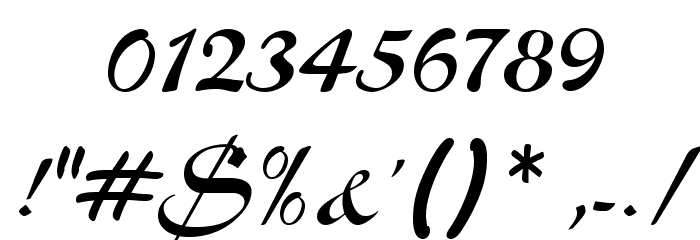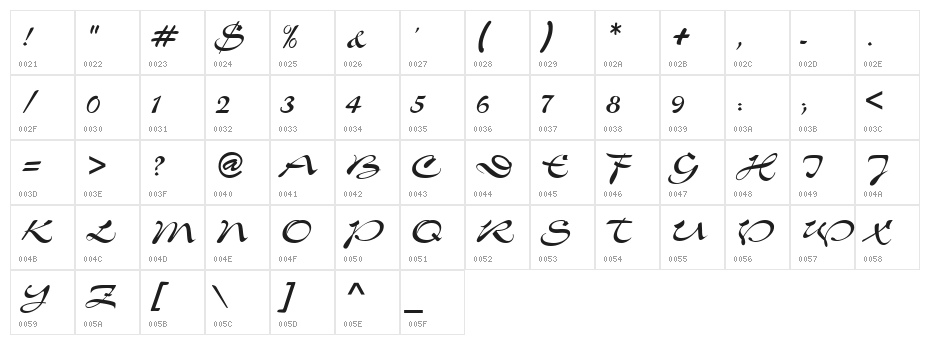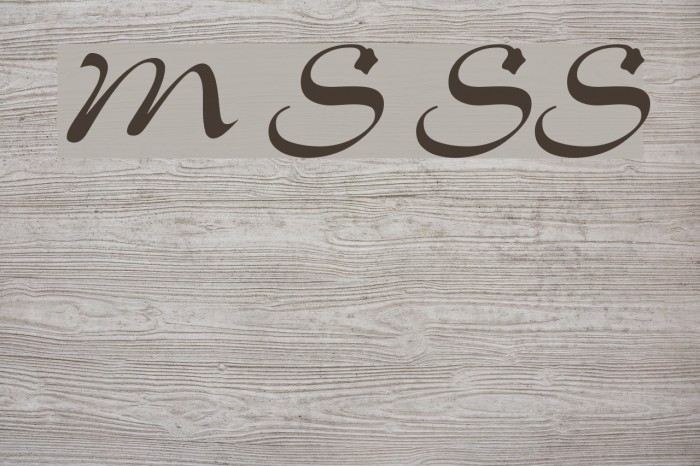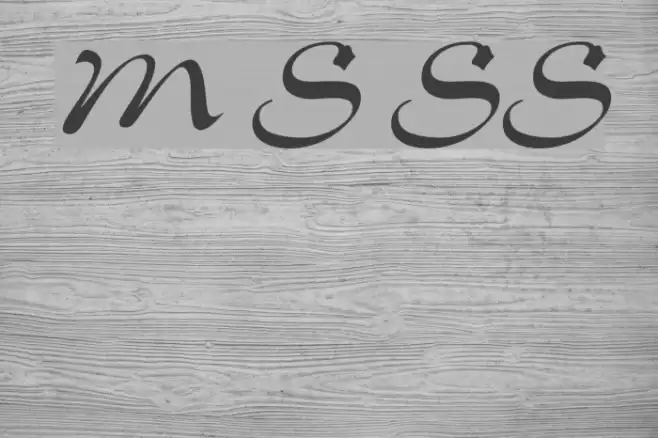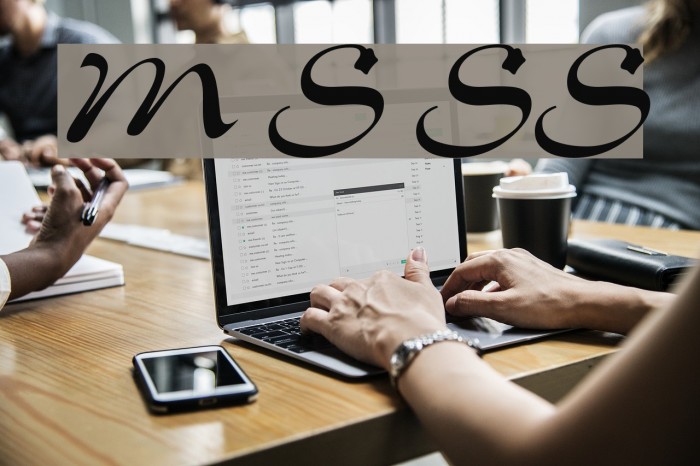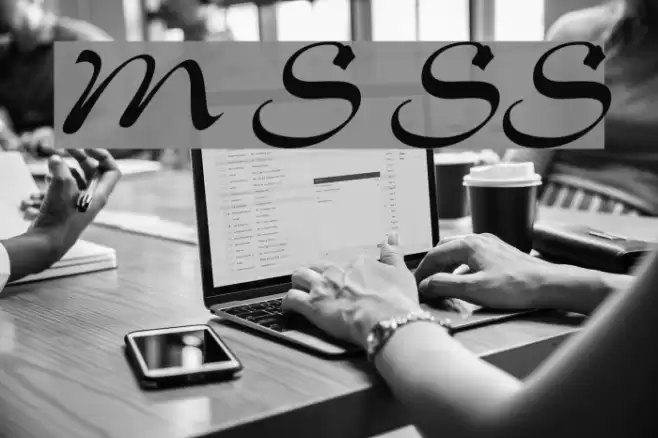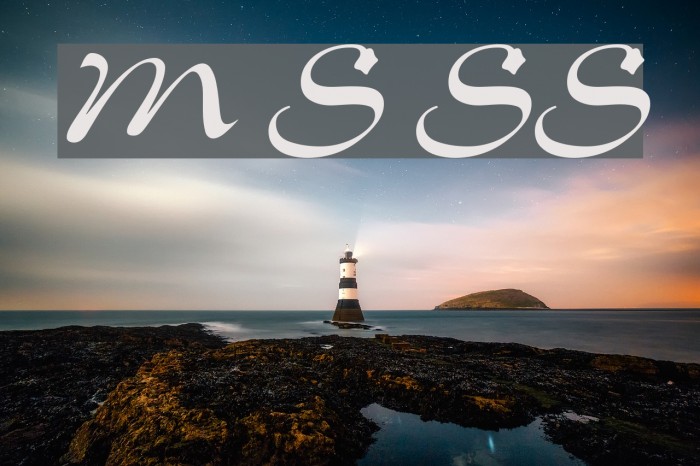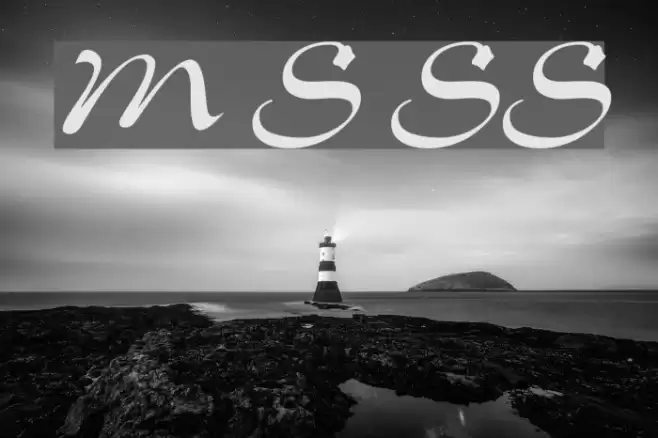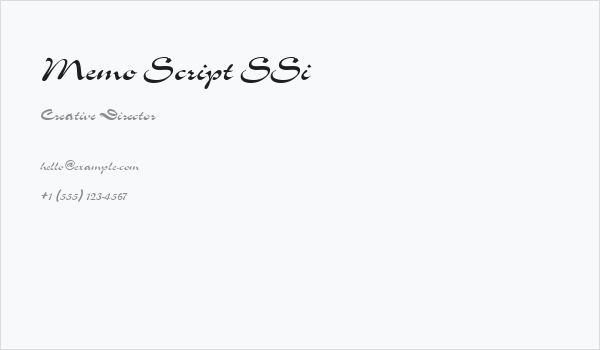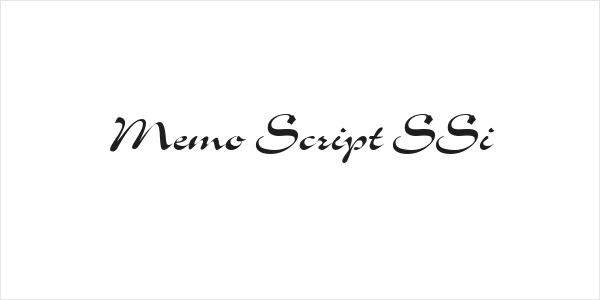
Memo Script SSi Font
Memo Script SSi Description
This font exudes a flowing, elegant script style that mimics the fluidity of handwriting. The characters are connected with smooth, sweeping strokes, giving it a sophisticated and artistic appearance. The uppercase letters are particularly ornate, featuring exaggerated loops and curves that add a touch of flair. The lowercase letters maintain a consistent flow, enhancing readability while preserving the decorative nature of the font. The numerals are styled to match the script, with gentle curves and a slightly playful touch. Special characters are seamlessly integrated, maintaining the overall aesthetic. This font is ideal for projects that require a personal, elegant touch, such as invitations, greeting cards, or branding materials.
| Overall Style | Elegant, Artistic |
| Use Case | Headlines, Invitations, Branding |
| Proposed Projects | Ideal for wedding invitations, greeting cards, personal branding, and elegant signage. |